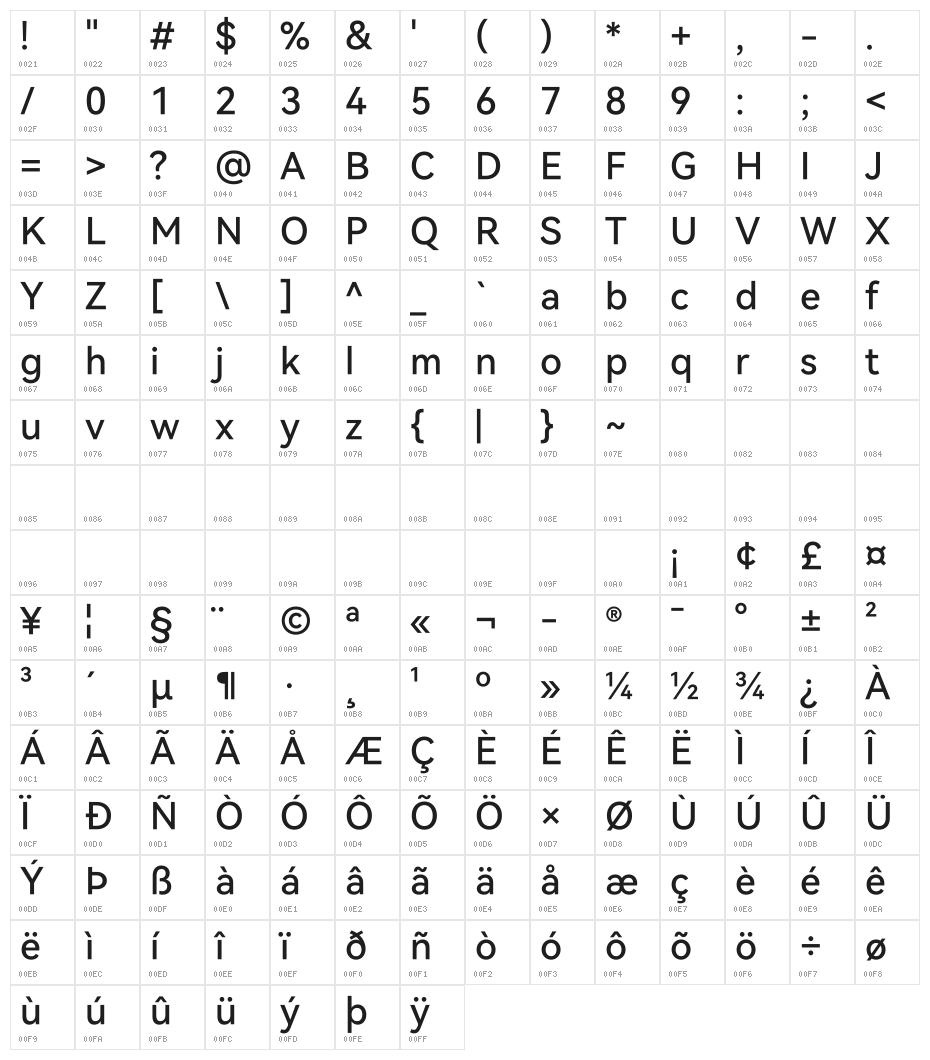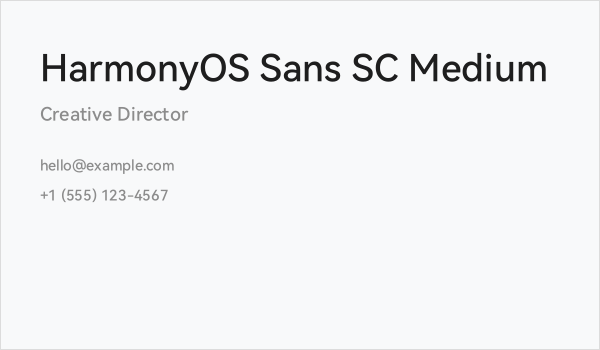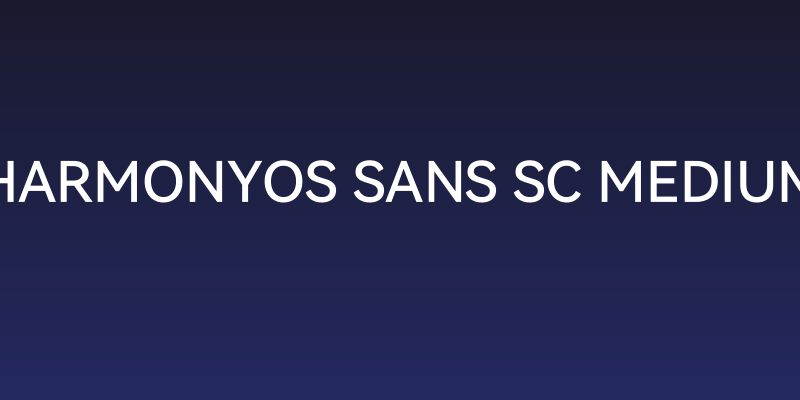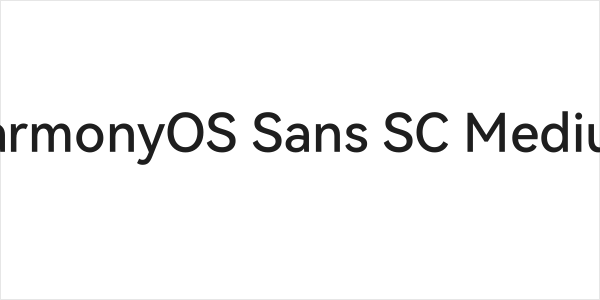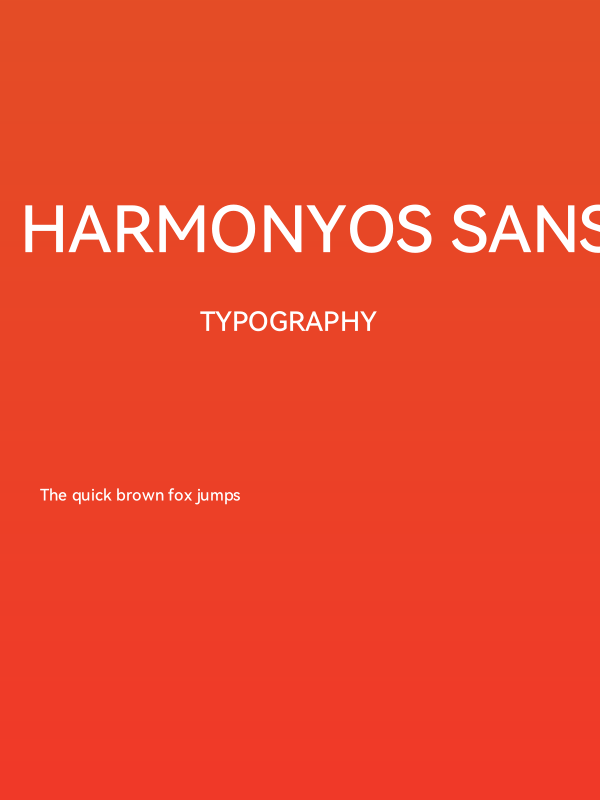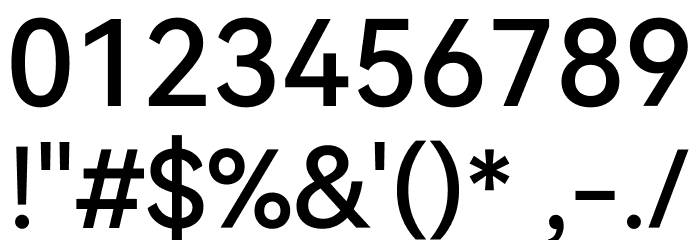
HarmonyOS Sans SC Medium Font
HarmonyOS Sans SC Medium Description
This font presents a clean and modern sans-serif style, characterized by its geometric shapes and balanced proportions. The letters are evenly spaced, providing a harmonious and legible appearance. The uppercase and lowercase characters maintain a consistent weight, contributing to a uniform look. The numerals are clear and distinct, making them easily readable. Special characters are well-defined, enhancing the font's versatility. Its simplicity and clarity make it suitable for a wide range of applications, from digital interfaces to print media.
| Use Case | Headlines, Body text, Logos |
| Proposed Projects | Ideal for user interfaces, websites, corporate branding, and print media. |